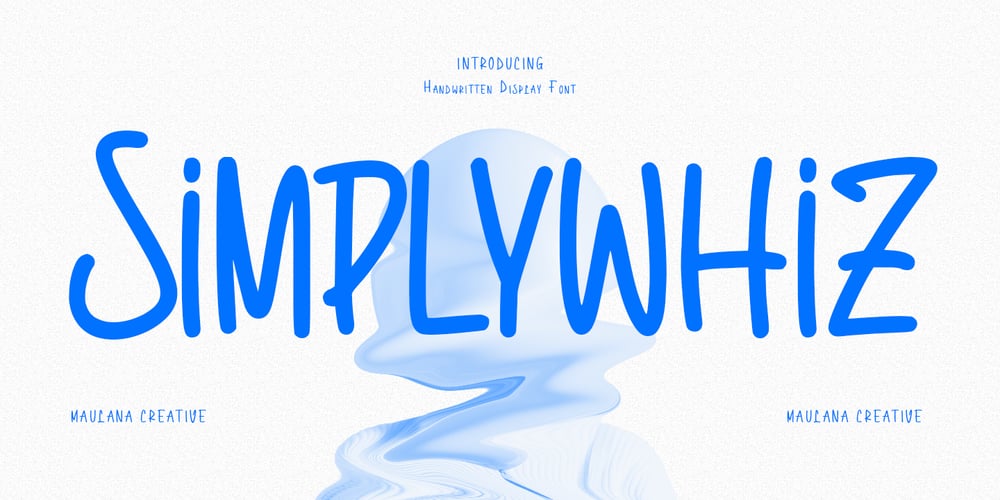
Simplywhiz Font Family was designed by Gilang Maulana and published by Maulana Creative. Simplywhiz contains 1 styles and family package options. Simplywhiz casual handwritten font. With regular consist mono-line stroke, fun character with a bit of ligatures and alternates. To give you an extra creative work. Simplywhizt font support multilingual more than 100+ language. This font is good for logo design, Social media, Movie Titles, Books Titles, a short text even a long text letter and good for your secondary text font with sans or serif. Make a stunning work with Simplywhiz font. Cheers, Maulana Creative